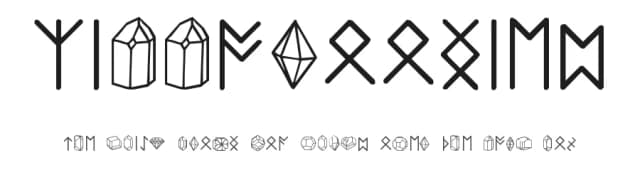
About Zill Spills Font
Zill Spills is a decorative font designed by Zillah. It includes 101 glyphs, a regular weight, TTF (TrueType) format, and 104 languages. Zill Spills is free to download; check the license details on this page before commercial use. Decorative fonts like Zill Spills work best for logos, posters, packaging, and standout headlines.
Zill Spills Font is a decorative font that shines as a display or heading face. Pair it with a clean sans-serif or serif font for body text β the contrast creates a clear hierarchy while the two styles stay balanced and easy to read.
Zill Spills Font
by Zillah
Zill Spills Font is a decorative typeface by Zillah, ideal for logos, invitations, branding, and creative projects.